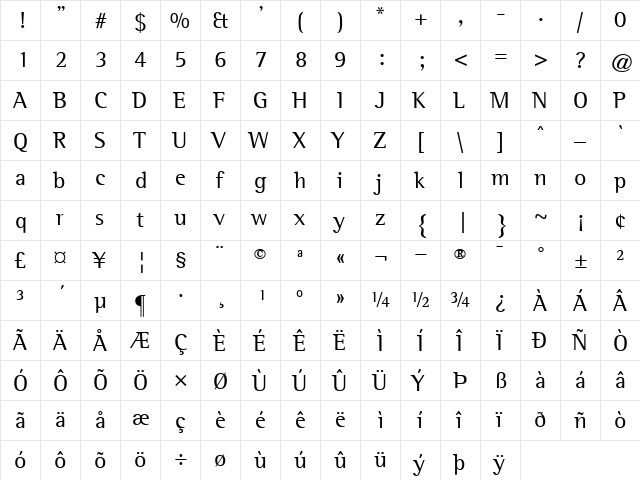
RotisSemiSerif55 Roman
Design Context for RotisSemiSerif55 Typeface
RotisSemiSerif55 brings classic typographic sensibility to the table — its serifs and measured letterforms reflect centuries of print heritage.
Pro Tip: Set RotisSemiSerif55 with slightly loose tracking in headlines to let each letterform's detail read clearly at display sizes.